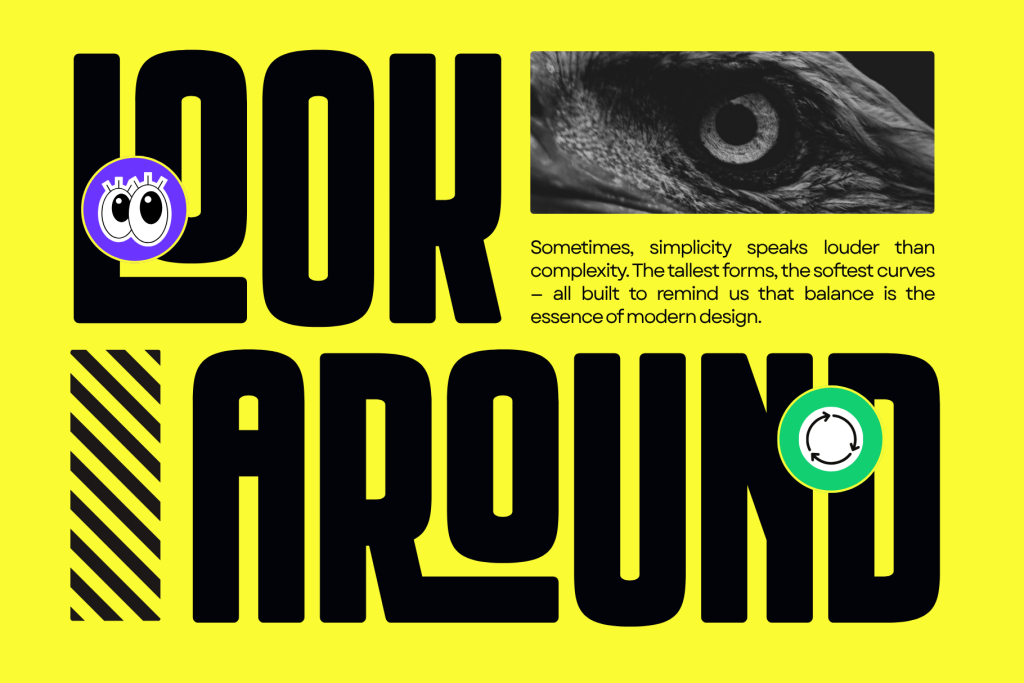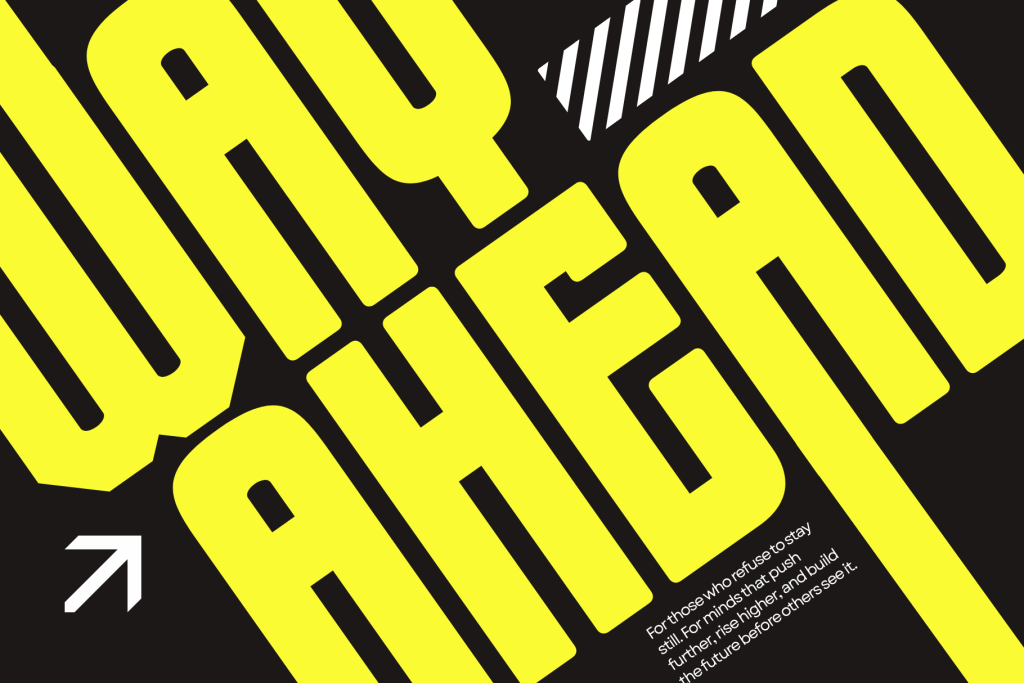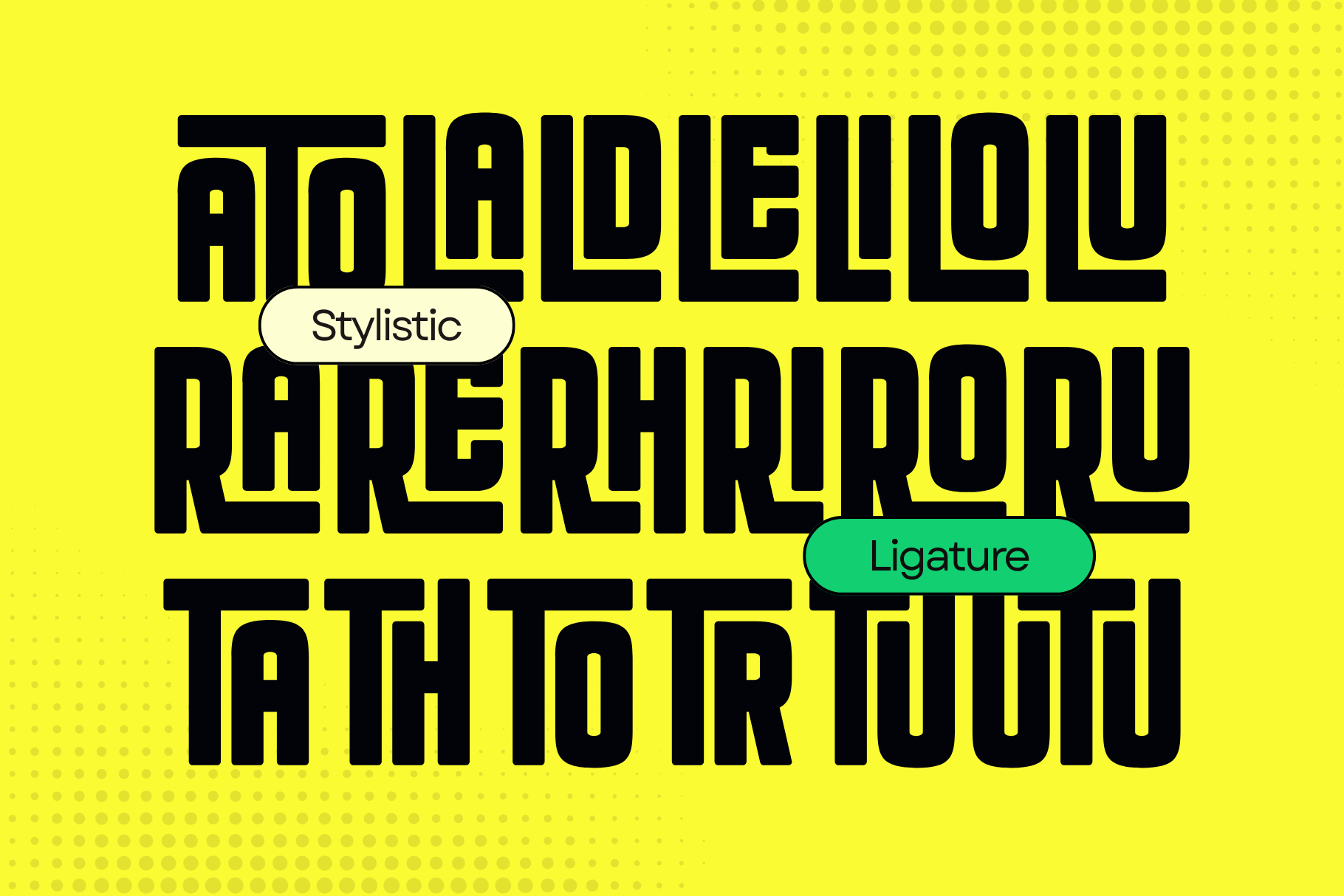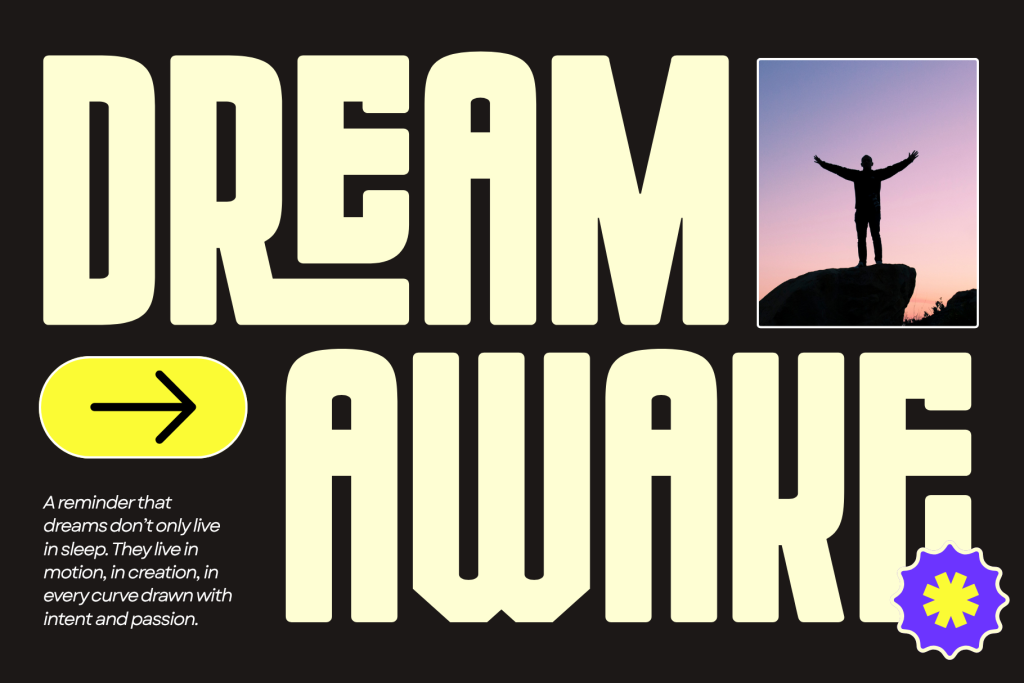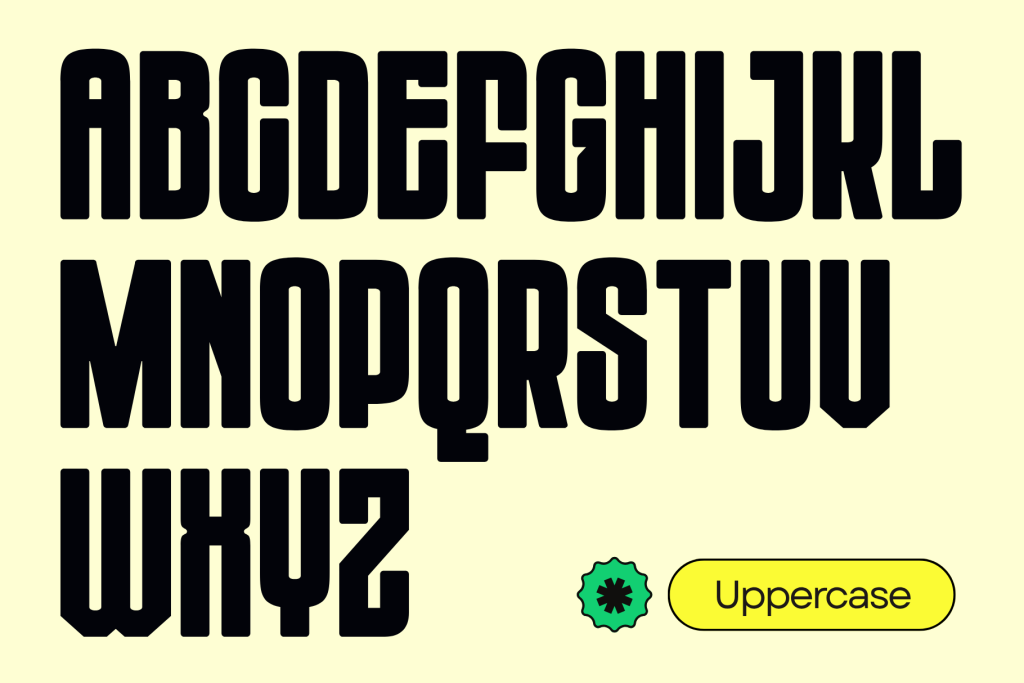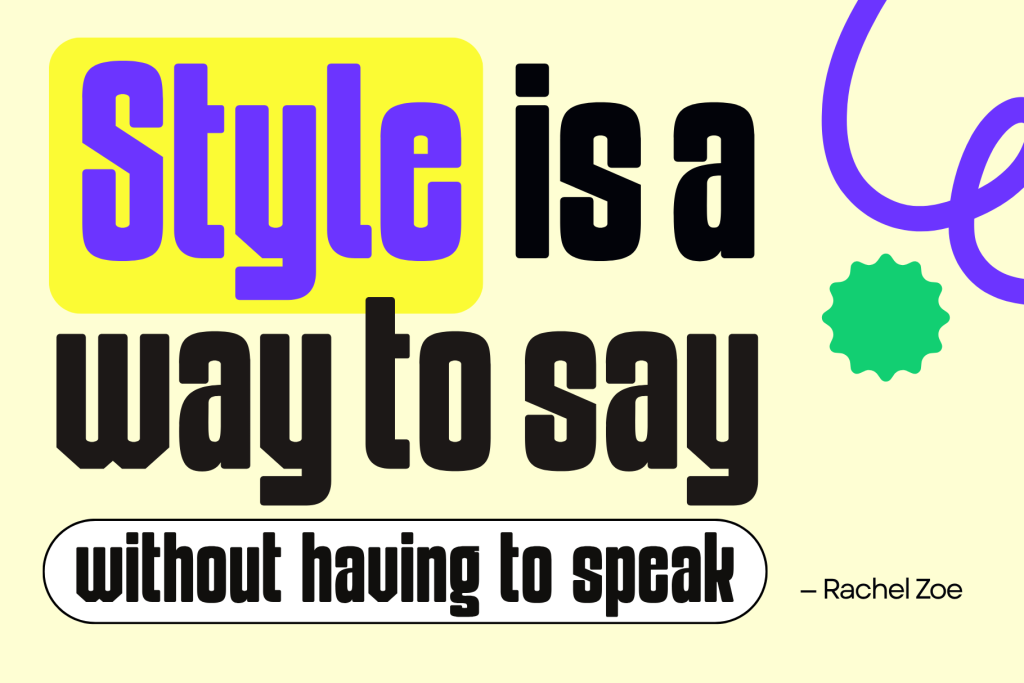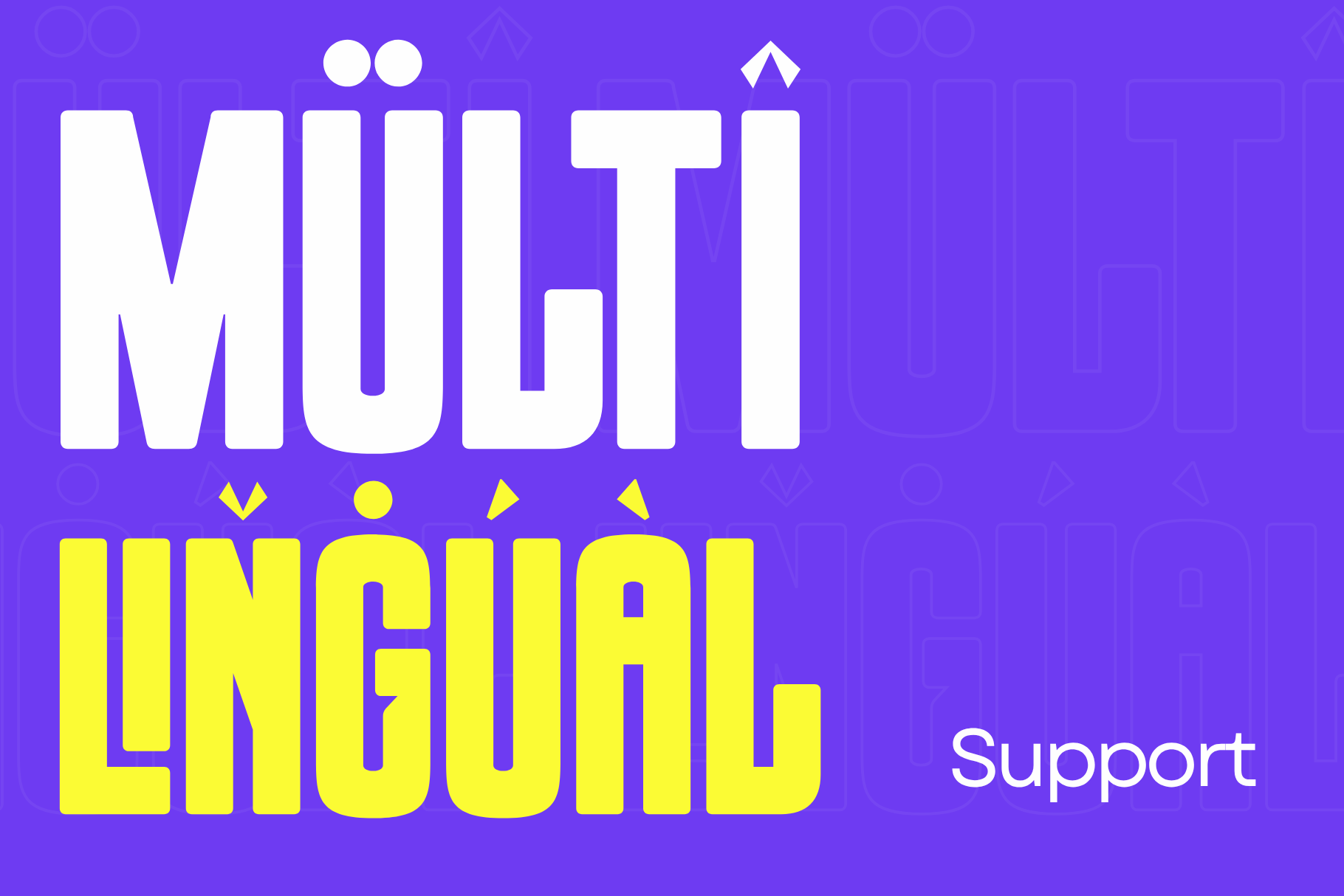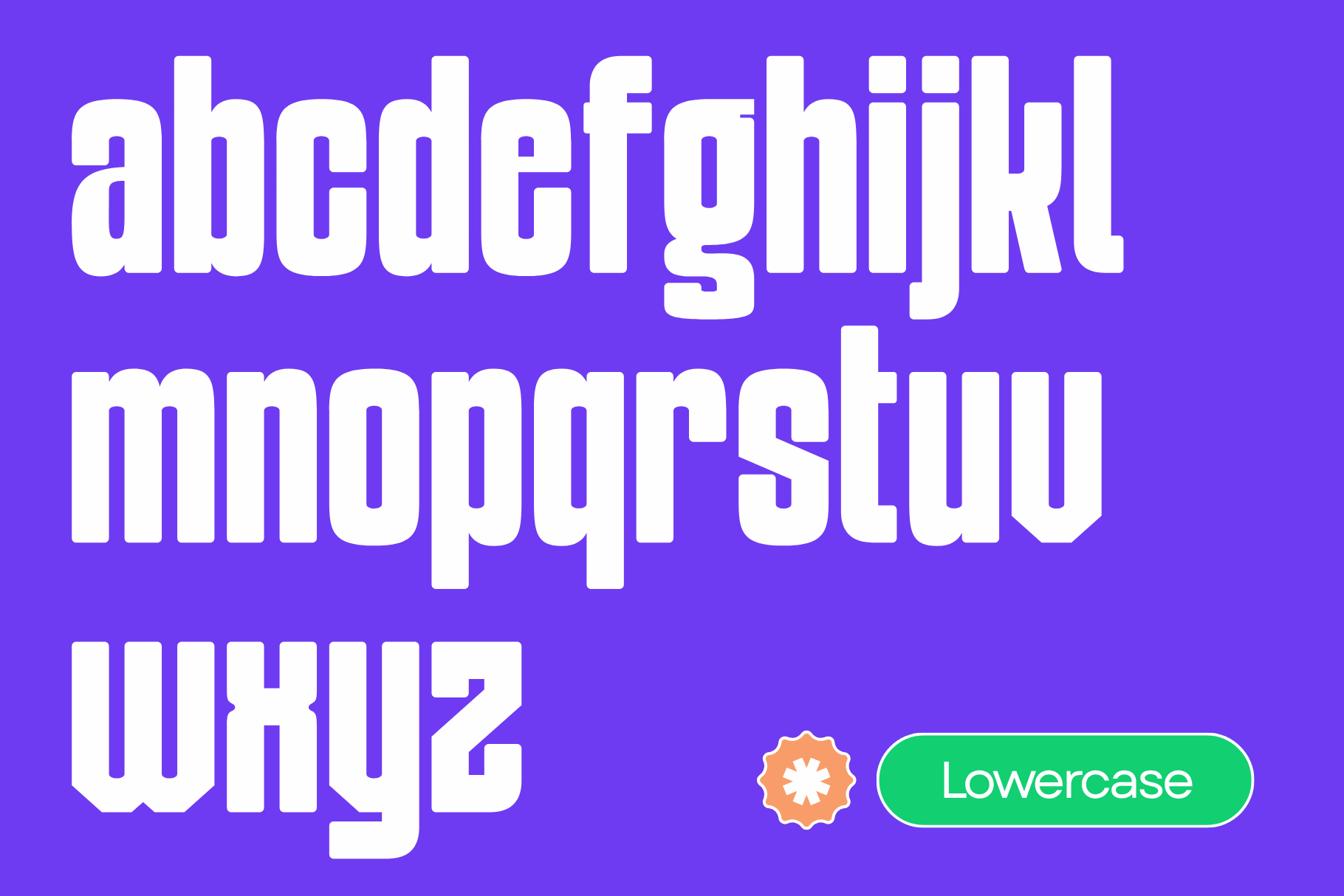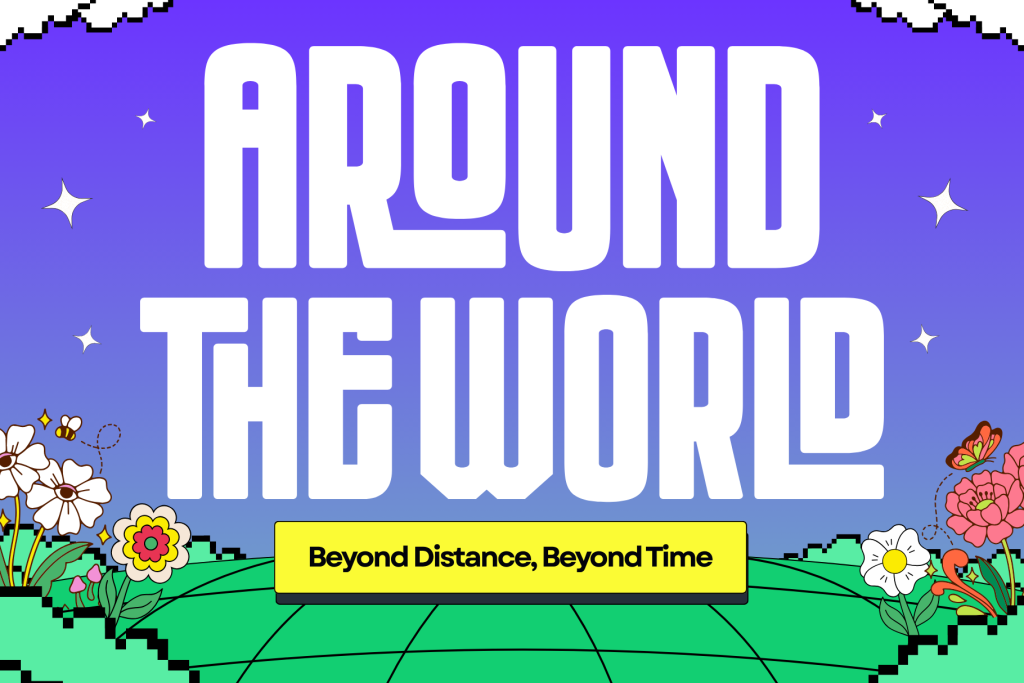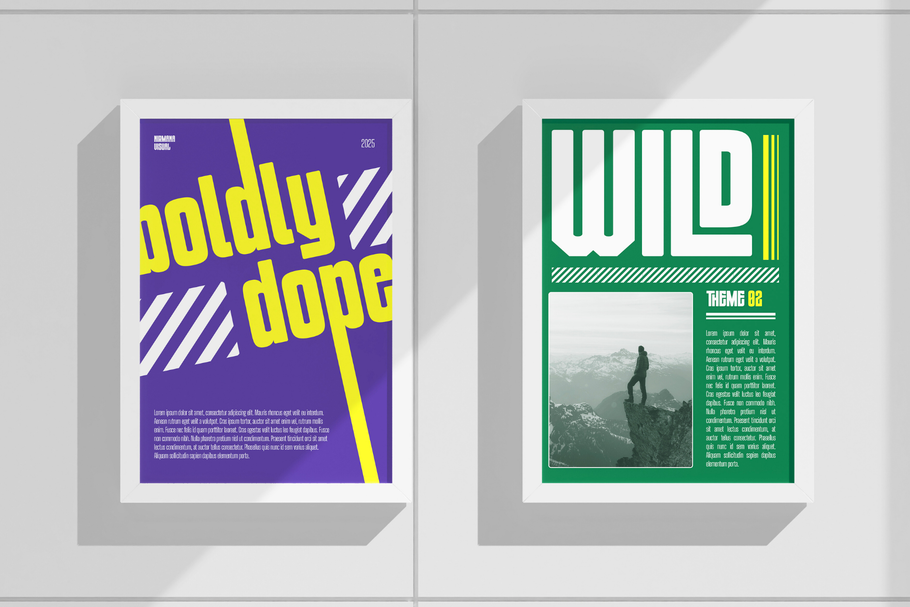
Lova Bold offers beautiful typographic harmony for a diversity of design projects, including logos & branding, social media posts, advertisements & product designs.